I think Gilroy font Arabic is a topic that many people search online but very few guides explain it in a simple way. I want to share what I learned so we can understand how Gilroy style works with Arabic text in a clear and easy way.
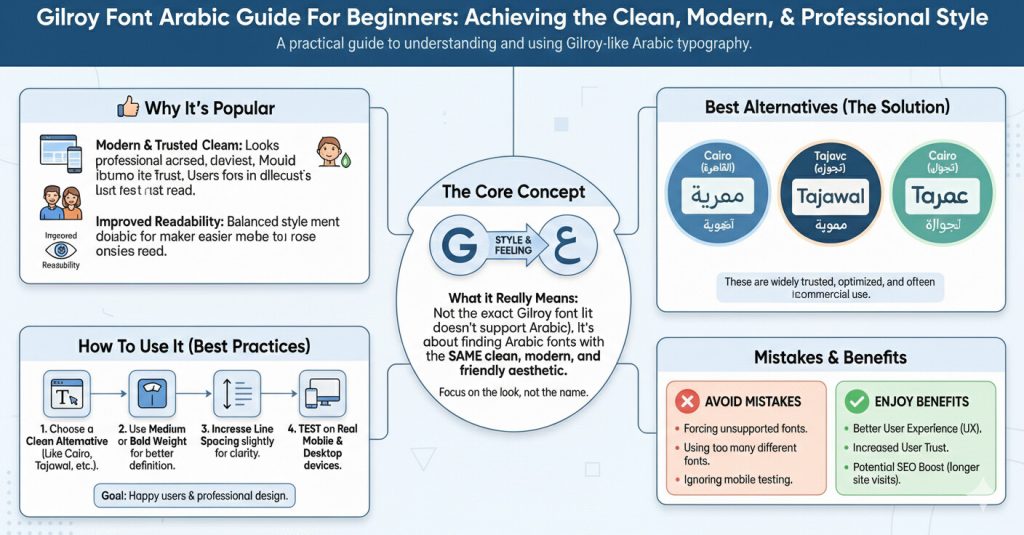
What Is Gilroy Font Arabic
Gilroy font is a modern clean and friendly font that many designers love. It is popular for websites, apps , posters, logos and social media designs. Gilroy font Arabic means using Gilroy style with Arabic language or finding Arabic fonts that look very close to Gilroy.
But we can still find Arabic fonts that match the same clean modern and balanced style.
If we understand this clearly then we can avoid wasting time searching for something that does not exist officially. Instead we can focus on finding the best Arabic alternatives that give the same feeling.
Why Gilroy Font Is So Popular
I think it is important to understand why the Gilroy font is popular first. The Gilroy font looks simple but professional. It feels modern and friendly at the same time. That is why many brands and designers trust it.
Gilroy font works well for headings, body text buttons and banners. It looks good on mobile screens and desktop screens. When text looks clean users feel comfortable reading it.
That same feeling is what designers want when working with Arabic language. That is why the search term gilroy font arabic is so common.
Why People Search Gilroy Font Arabic
Many designers are working on Arabic websites, mobile apps, landing pages and posters. We want text that looks modern, clean and professional.
Gilroy style feels fresh and balanced. That is why people search for gilroy font Arabic hoping to get the same modern look in Arabic text.
I noticed that if a font looks balanced then Arabic text becomes easier to read. When users can read easily they trust the website more. Trust is very important for any online project.
My Personal Experience With Arabic Fonts
I remember when I worked on my first Arabic landing page. I was excited but also confused.
I spent many hours testing different Arabic fonts. Slowly I learned that we should not force one font just because it is popular. We should choose what works best for language and users.
When I switched to clean modern Arabic fonts the whole design felt better. Text became easier to read and the page looked professional. That experience helped me understand the importance of choosing the right font.
Does Gilroy Font Support Arabic
This is a very common question. It was designed mainly for Latin characters.
That does not mean we cannot use Gilroy style in Arabic projects. It only means we need to use similar Arabic fonts that match the same style.
If we understand this then we save time and avoid frustration.
What Gilroy Font Arabic Really Means
Gilroy font Arabic does not mean the exact Gilroy font with Arabic letters. It means Arabic fonts that look similar to Gilroy in style.
These fonts are usually clean, modern , simple and easy to read. They work well for websites, apps and branding.
So when someone searches for Gilroy font Arabic they are actually looking for modern Arabic fonts with a Gilroy like feeling.
Best Alternatives To Gilroy Font Arabic
If we want Gilroy font Arabic style then we should look for fonts that are modern, simple and balanced.
Some popular Arabic fonts that match Gilroy feeling are Cairo Tajawal IBM Plex Arabic
These fonts are widely used and trusted by designers. They look clean and professional. They also work well on different screen sizes.
I personally tested these fonts on websites and mobile apps and they performed very well.
Why Cairo Font Is A Good Choice
The Cairo font is very popular for Arabic projects. It looks modern and friendly. It has good spacing and clear shapes.
Cairo font works well for headings and body text. It is easy to read even on small screens. That is why many designers choose it as a Gilroy alternative.
If you want a clean Arabic font for websites then Cairo is a very safe choice.
Why Tajawal Font Is Useful
Tajawal font is another great option. It feels modern and soft. It works well for user interfaces and mobile apps.
I like Tajawal because it looks light and balanced. It does not feel heavy or crowded. This helps users read text easily.
If your project needs a friendly and modern Arabic look then Tajawal is a good option.
IBM Plex Arabic And Its Style
IBM Plex Arabic is part of the IBM Plex font family. It is designed with clarity and readability in mind.
This font works well for professional and technical projects. It looks clean and structured. It is a good match if you want a serious and modern design.
Fonts like Cairo and Tajawal are very close in style
Conclusion
I think Gilroy font Arabic is more about style than exact font. Gilroy font does not support Arabic but we can use similar Arabic fonts that look modern, clean and professional.
If we choose wisely then design looks better and users feel comfortable. We should always focus on readability, user experience and simplicity.